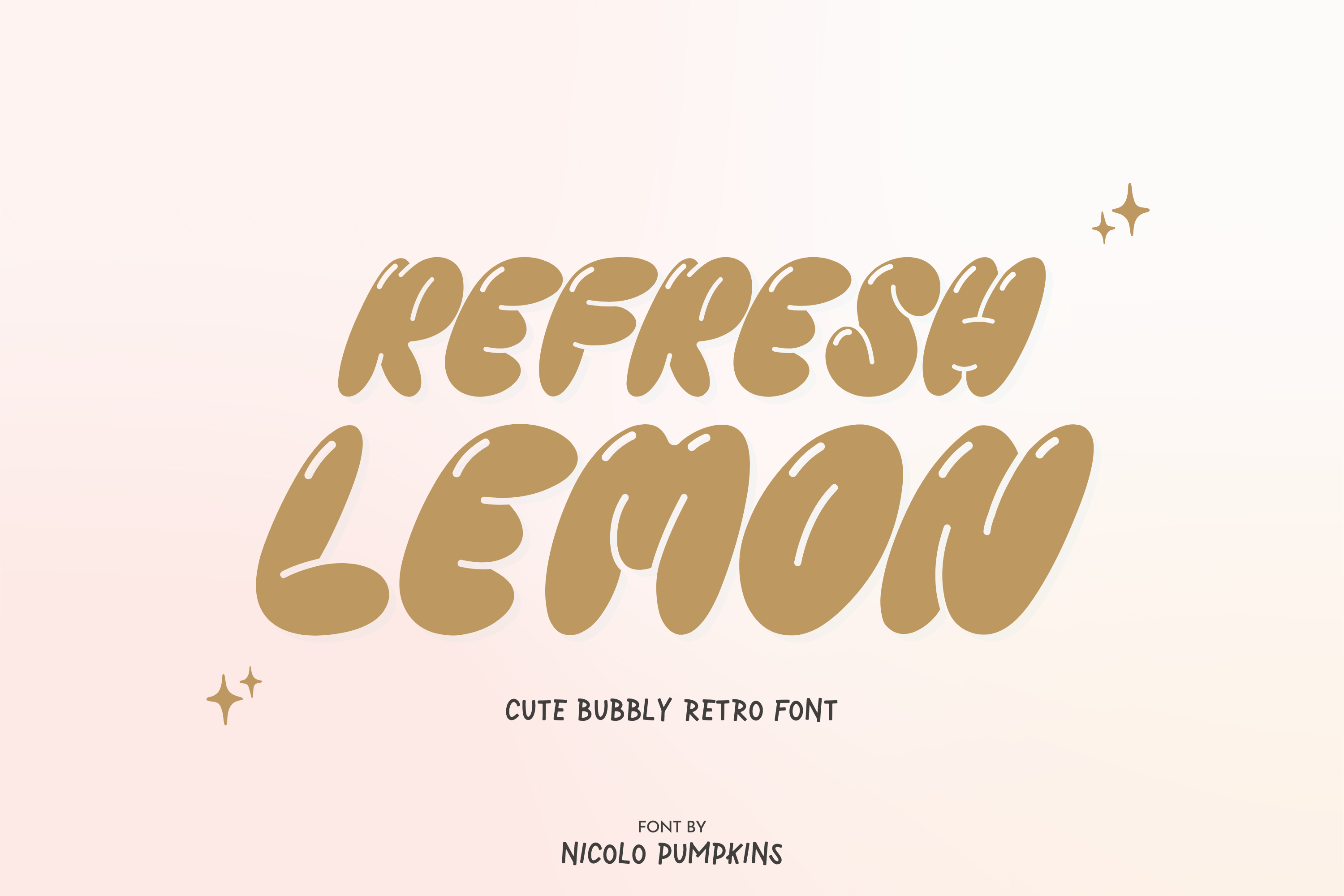
Refresh Lemon Font
Refresh Lemon FONT A cute bubbly retro display font with 70s and hippie style
✦ Refresh Lemon FONT is perfect for: shirts, mugs, logos, wedding invitations, poster, greeting cards, social media, branding, Procreate, Cricut and more!